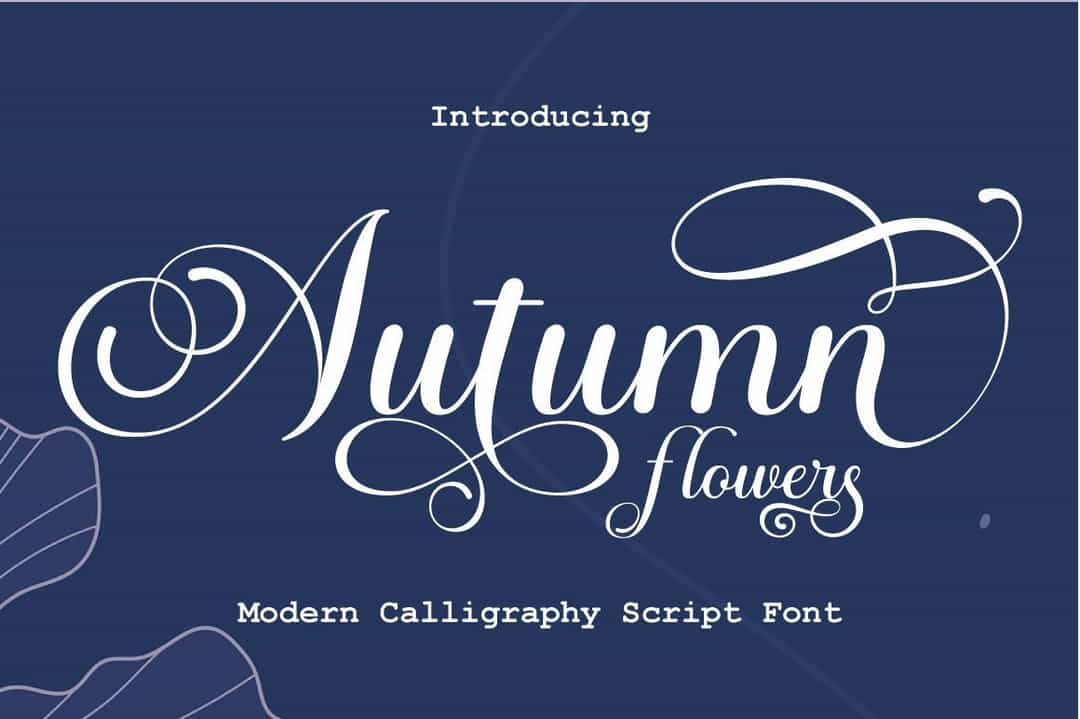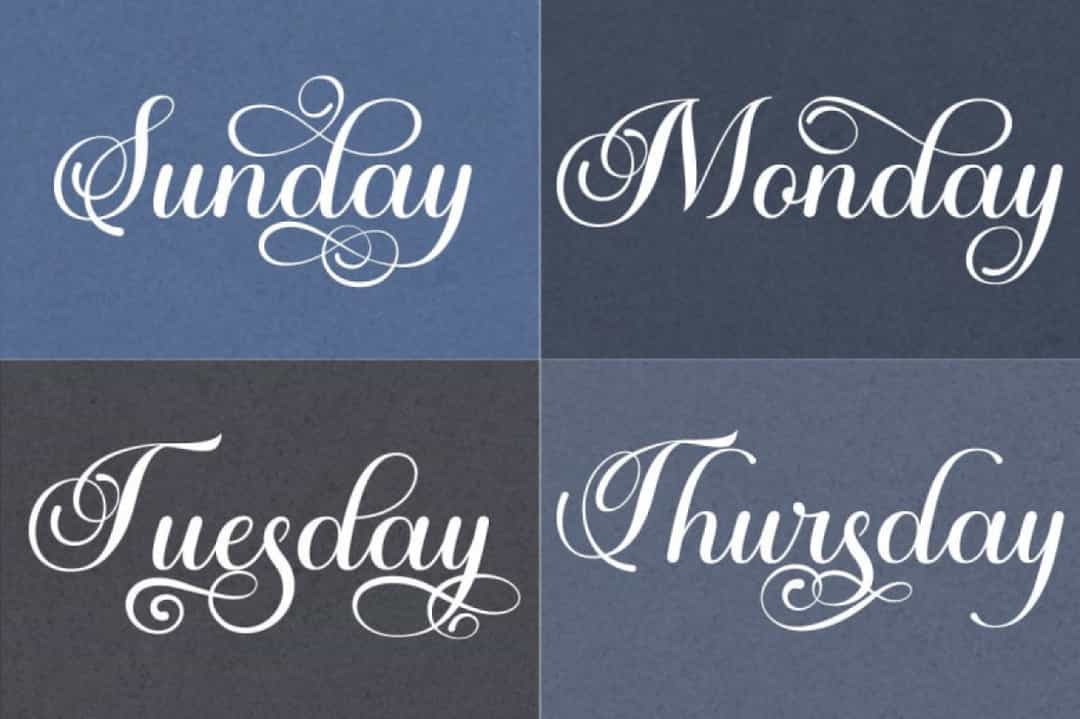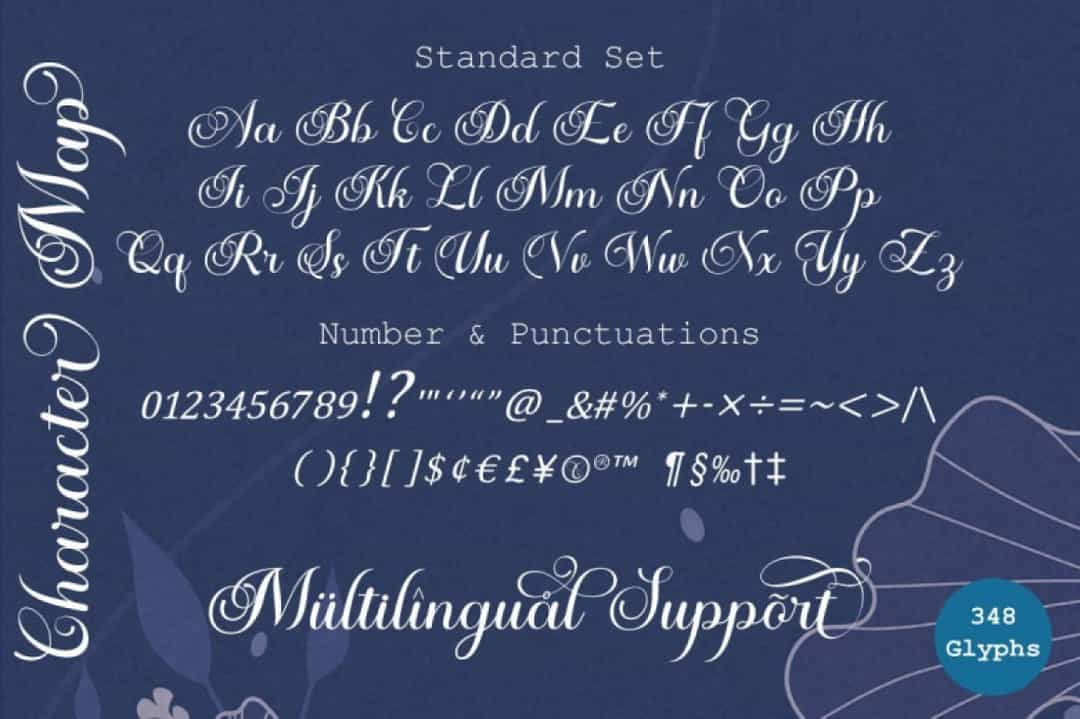
Autumn Flowers is an elegant and modern script calligraphy font designed with an air of sophistication in each character, giving projects that showcase it a personal touch that exudes confidence and enthusiasm.